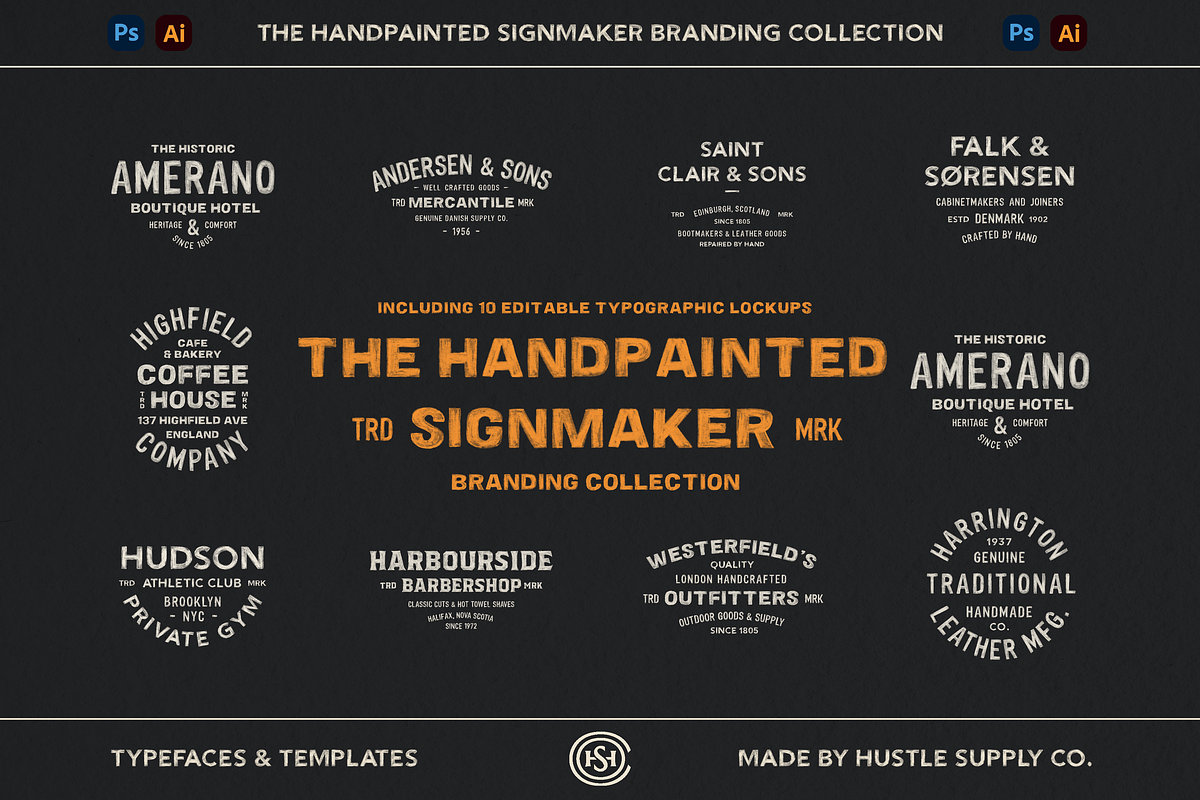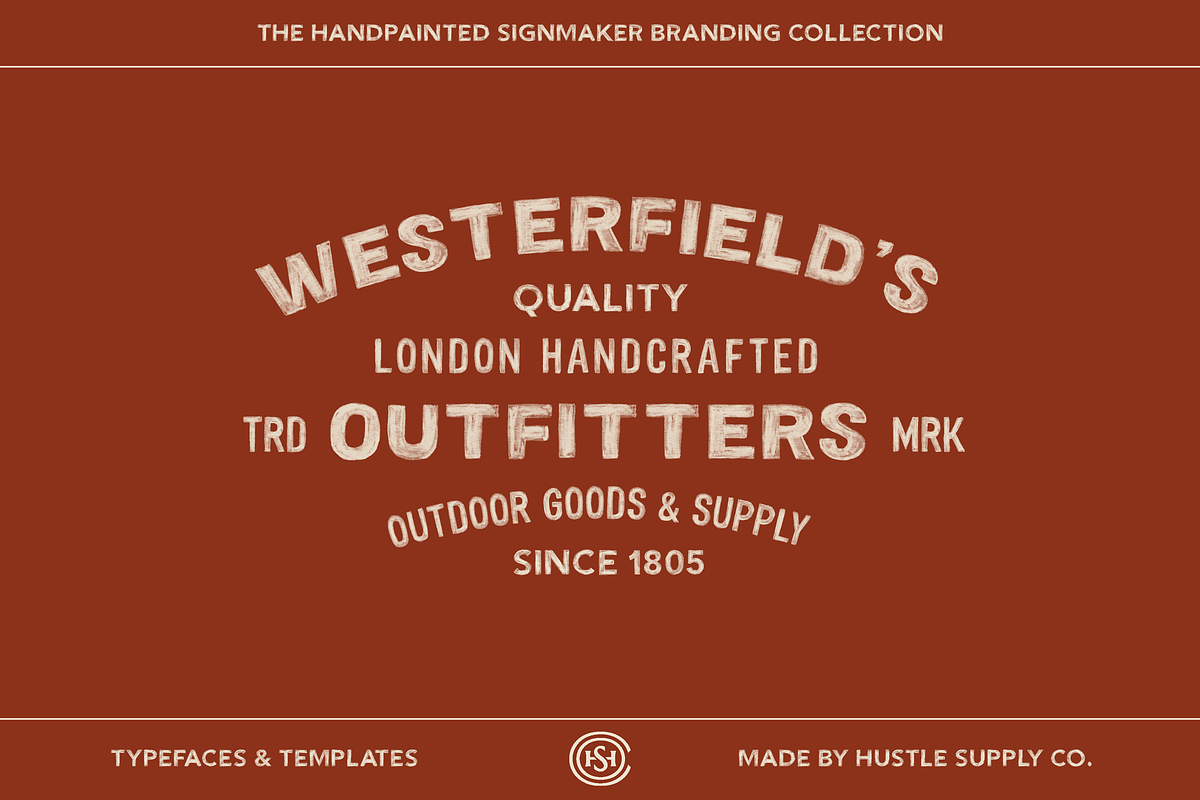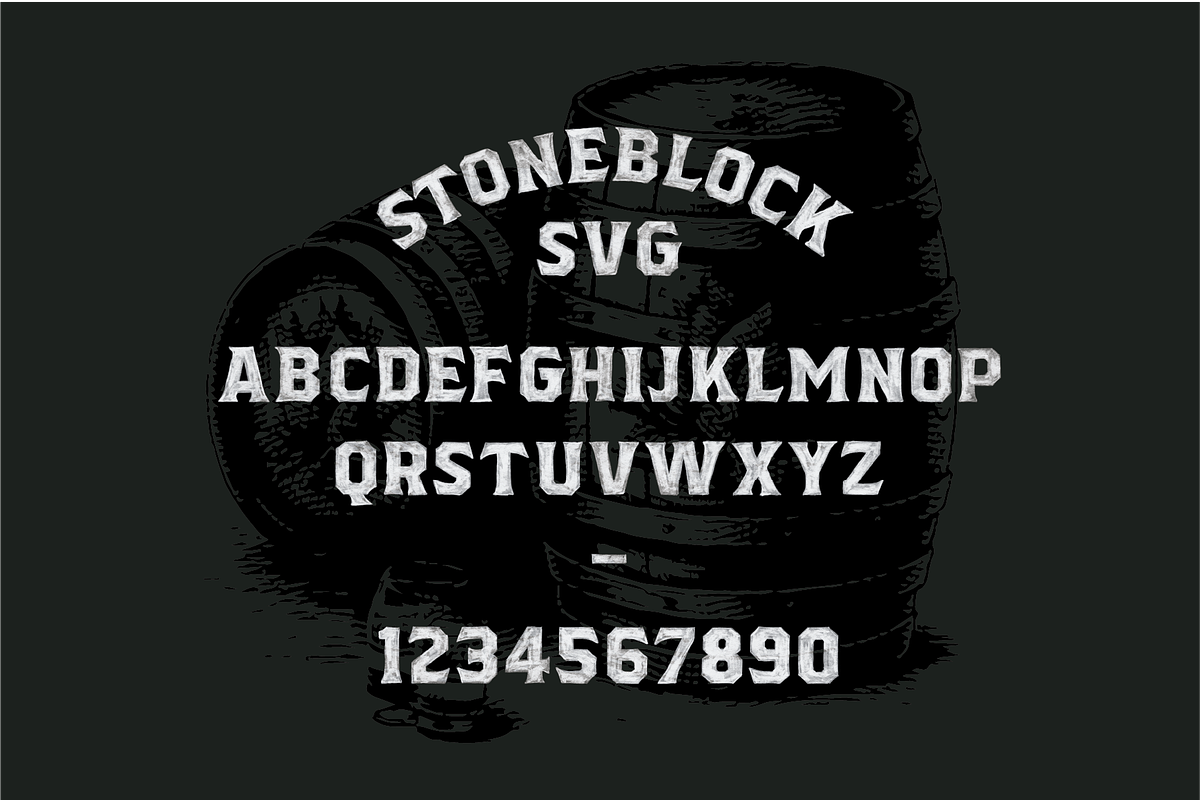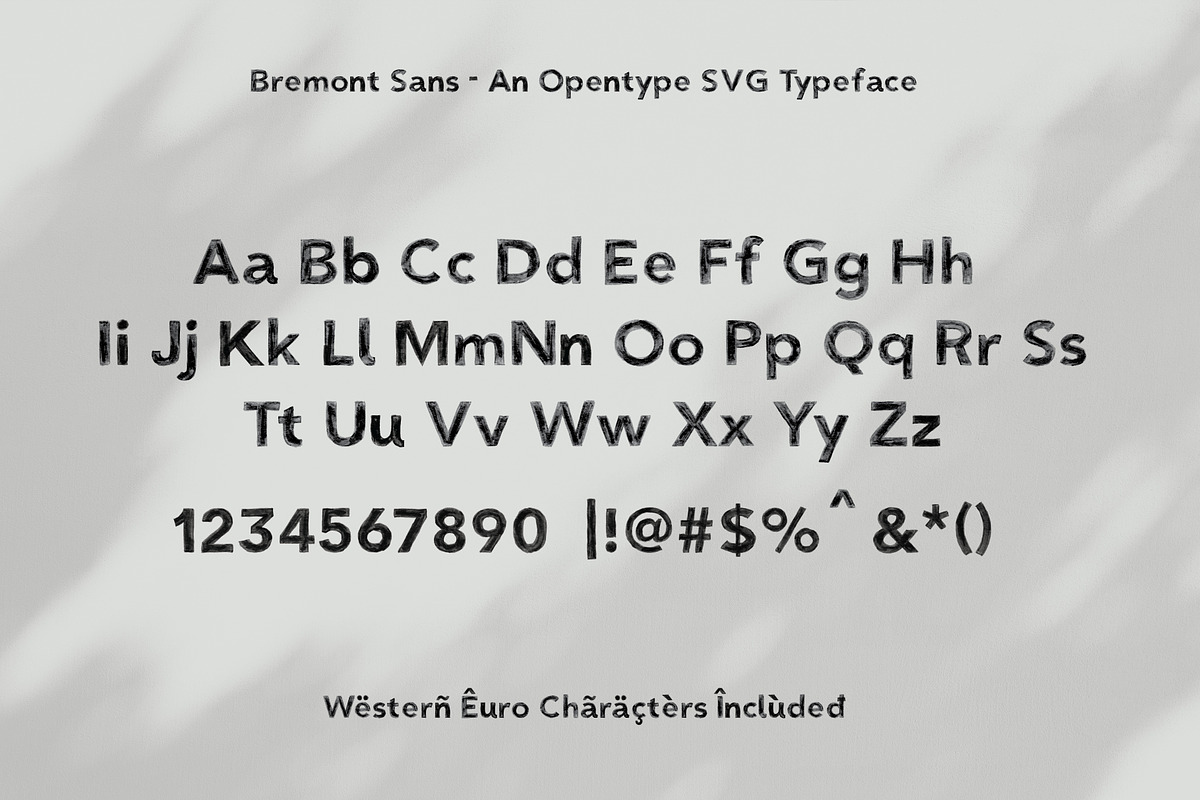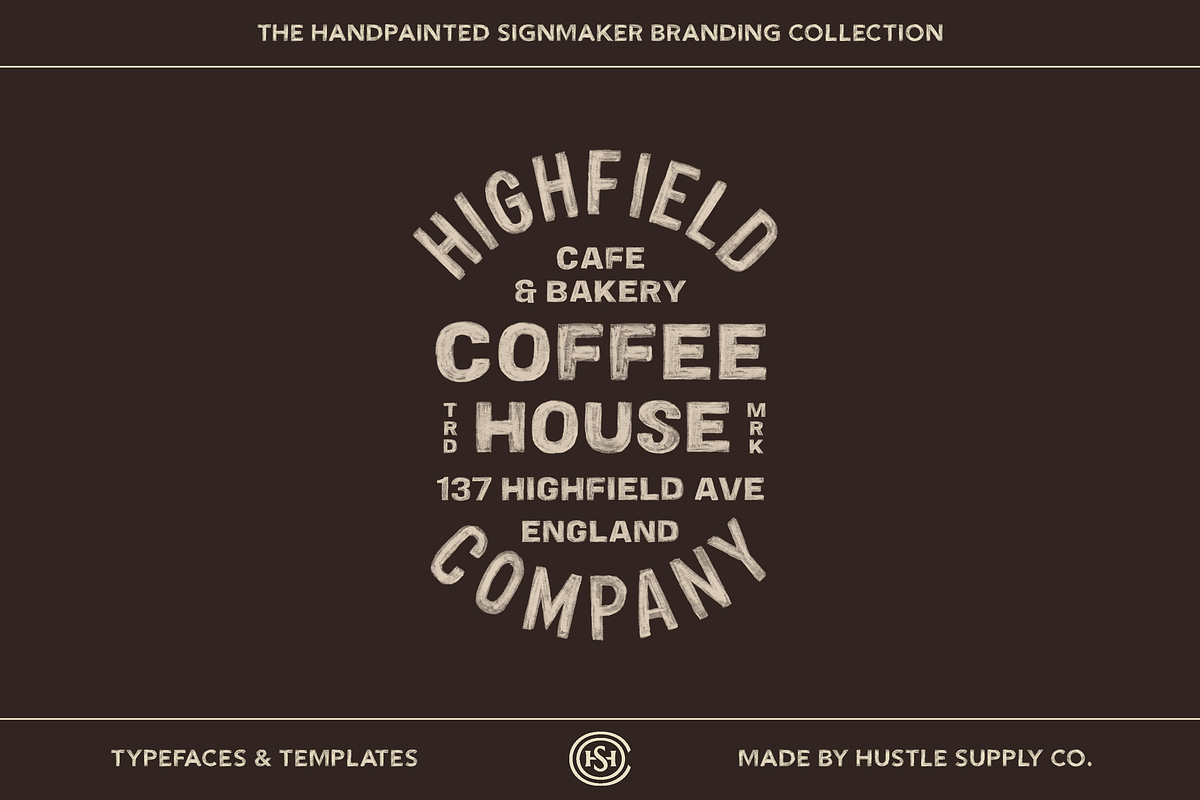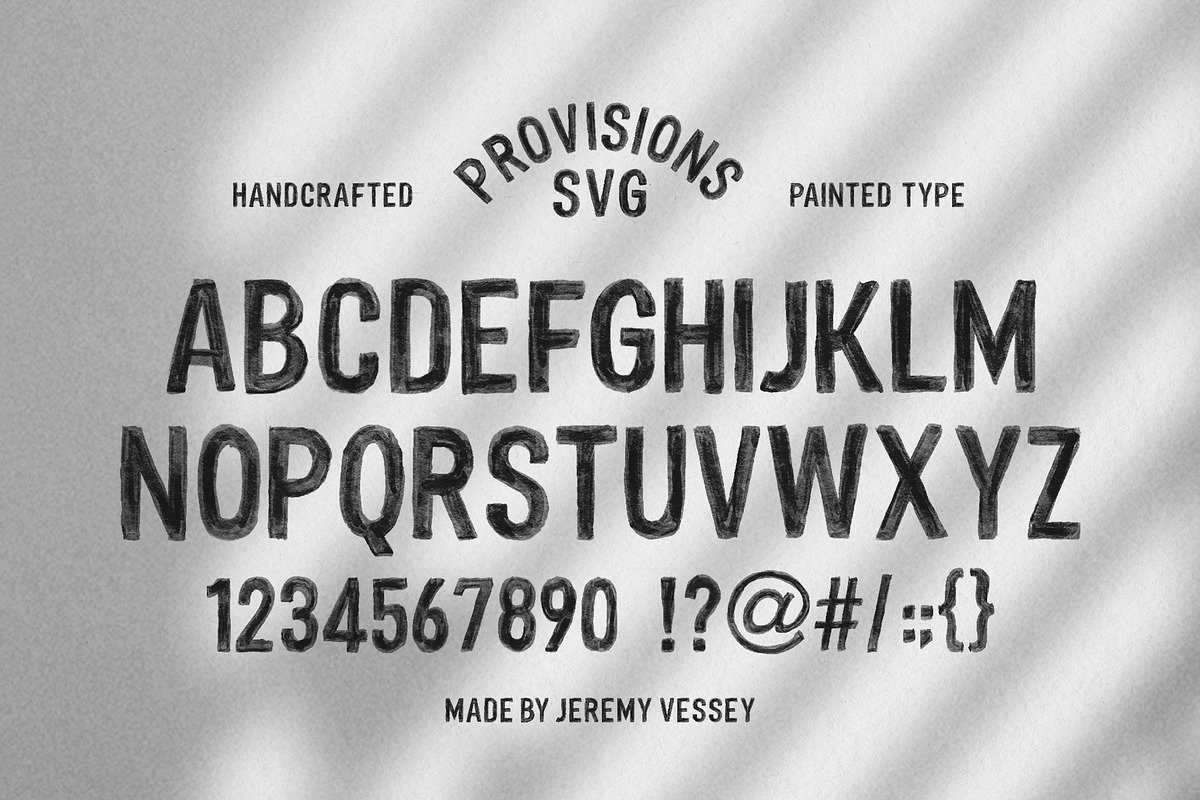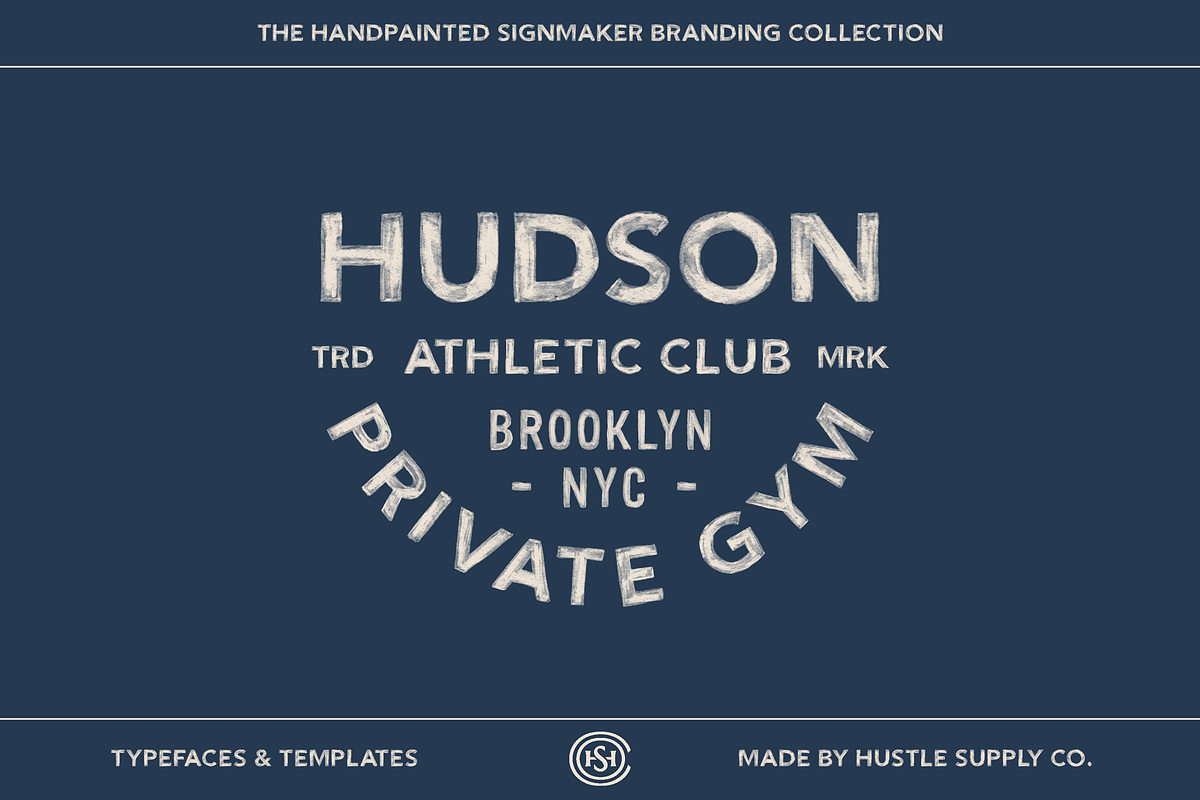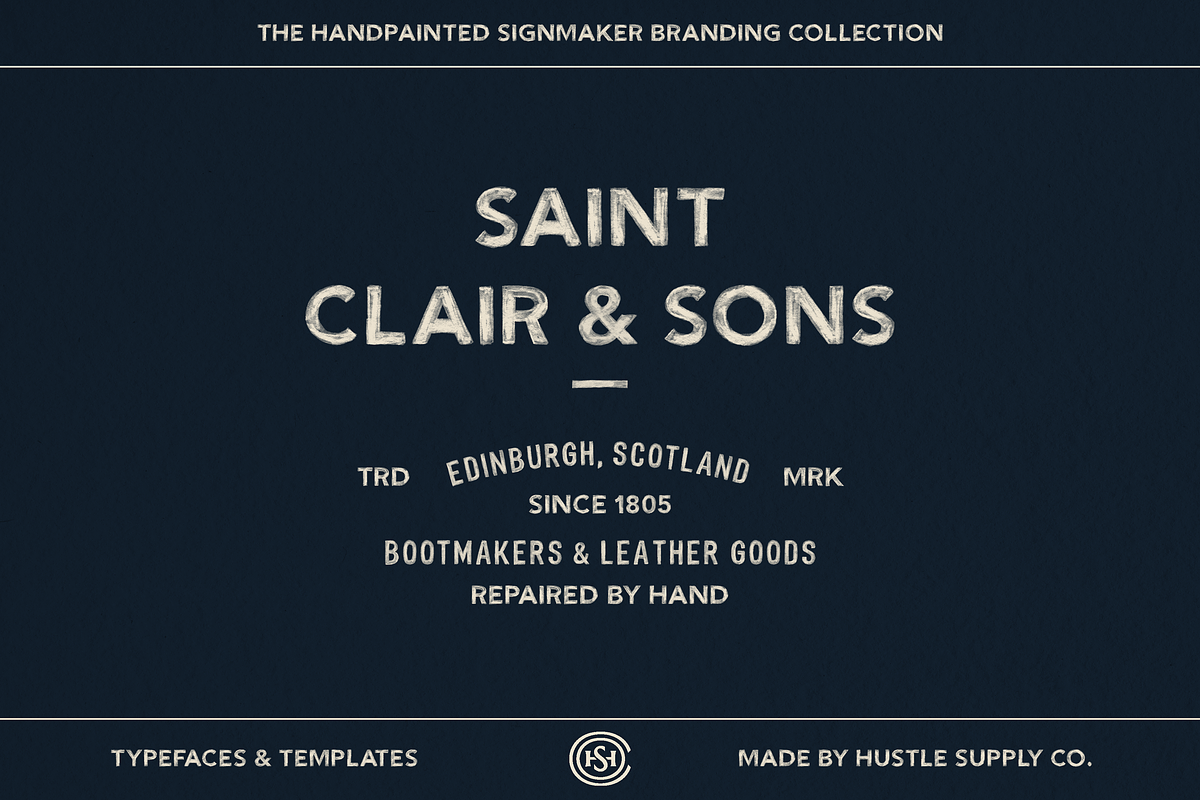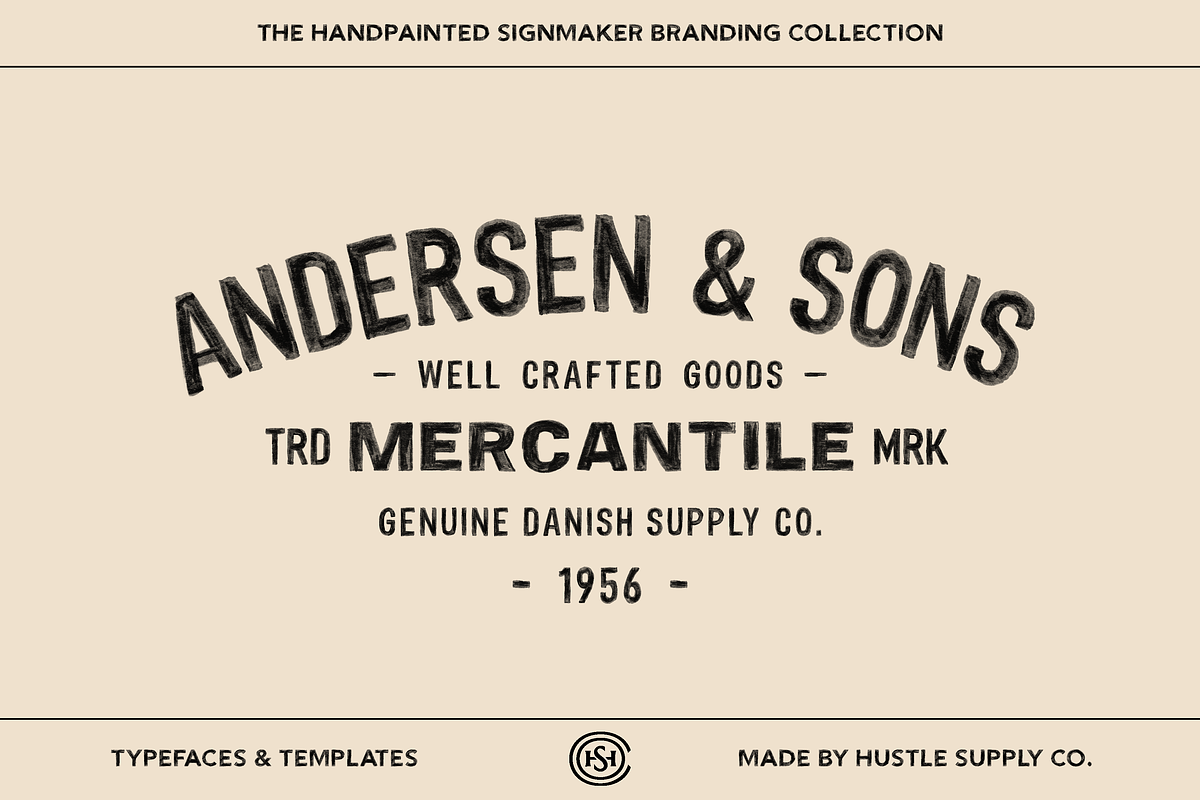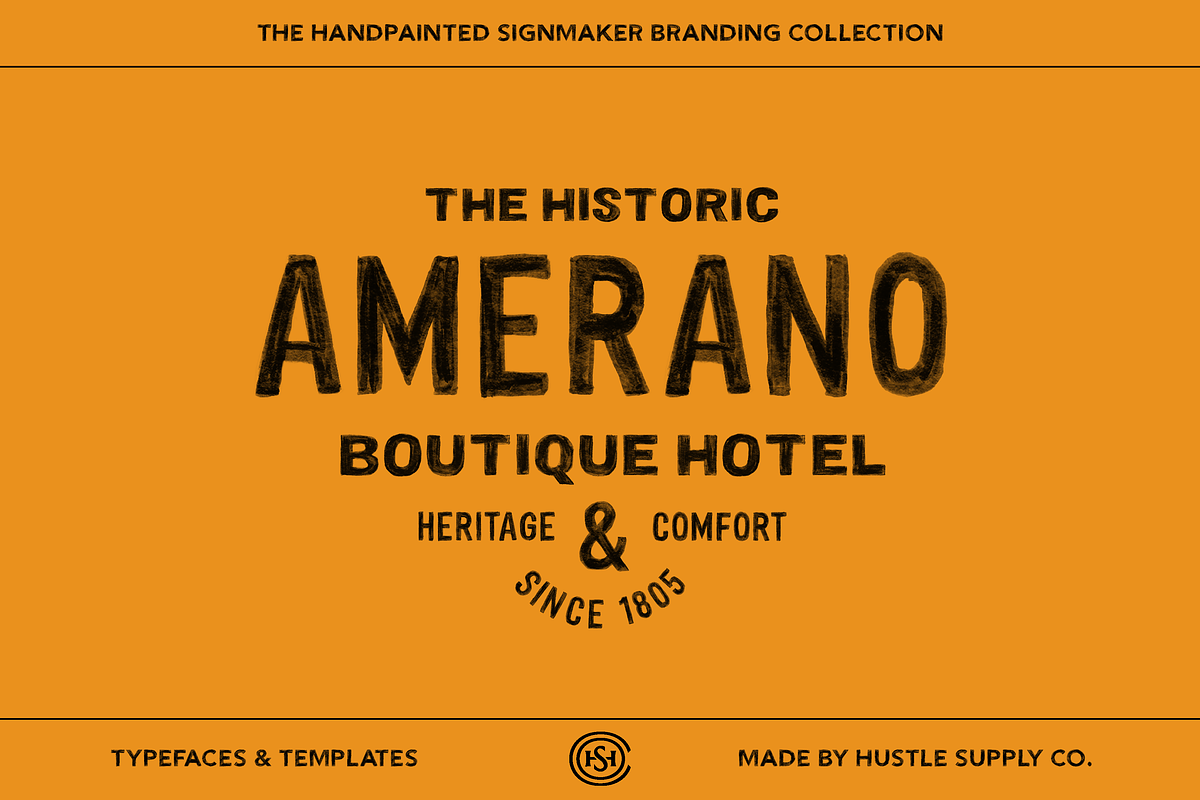
The Handpainted Signmaker Collection
The Handpainted Signmaker Branding Collection
Create branding that looks genuinely painted by hand... without painting every letter yourself.
The Handpainted Signmaker Branding Collection is a complete type and branding toolkit inspired by traditional sign painters, old storefront lettering, heritage packaging, cafés, barbershops, hotels, outfitters, workshops, and independent makers.
At the heart of the collection are 4 handpainted OpenType SVG fonts + 4 OTF vector fonts, giving you both the authentic texture and variation of the original painted letterforms and clean vector versions for maximum flexibility.
Every typeface began with lettering created by hand. Instead of adding a digital distress effect to a finished font, the natural imperfections are built directly into the letterforms - uneven edges, shifting texture, subtle inconsistencies and all the character that makes traditional sign painting feel human.
But this collection isn't just about the fonts.
I've also created 10 fully editable typographic branding templates, designed using the included typefaces to help you build convincing identities without starting from a blank canvas. Change the wording, rearrange the layouts, customize the colors and quickly adapt them to your own project.
Professionally designed typographic lockups
Authentic handpainted texture throughout
The included templates can be used as starting points or simply as inspiration for creating something completely your own.
Built for logos, branding, signage, packaging, apparel, menus, labels, posters, merchandise and more.
Perfect for coffee shops, restaurants, barbershops, breweries, boutique hotels, clothing brands, outdoor companies, workshops, makers and anyone looking to capture the character of traditional hand-painted signage.
Everything you need to bring the warmth, imperfection and character of the traditional sign shop into your next project.